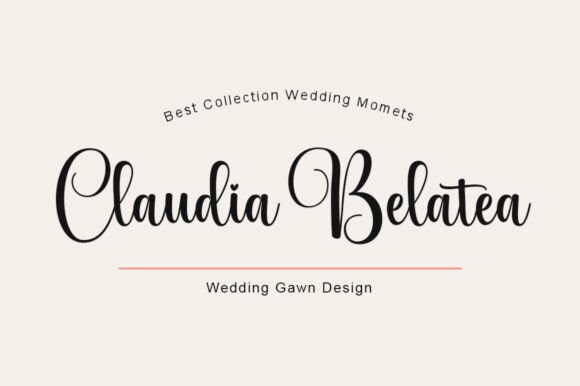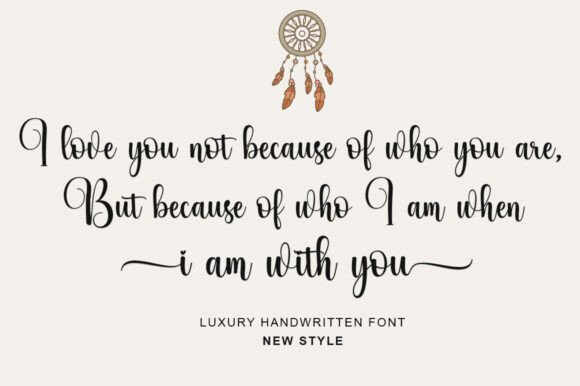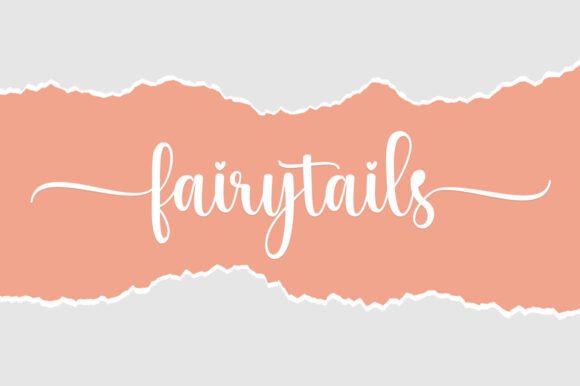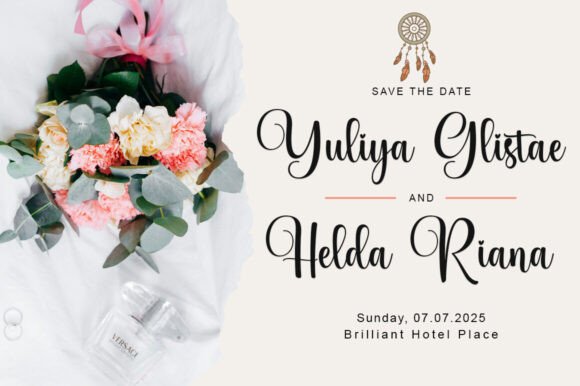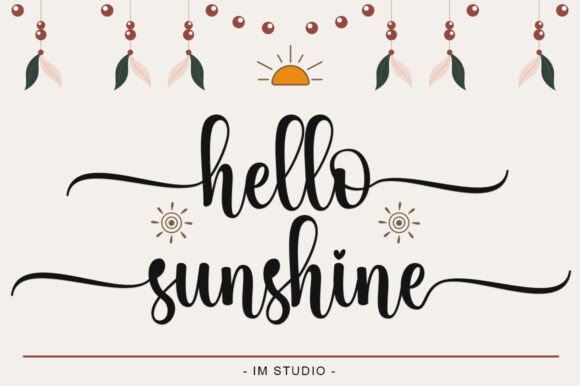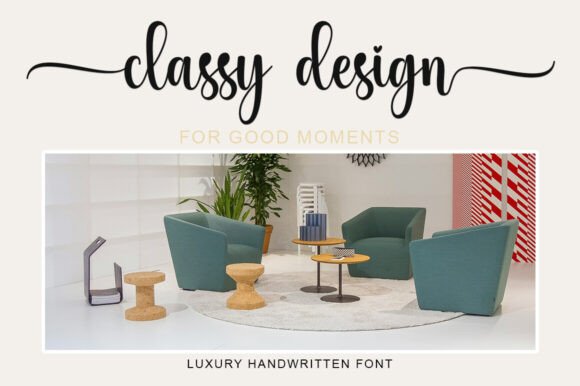
Unlock the Whimsy of Bohema Font
There’s something magical about creating a design that transports your audience to a world of warmth and intimacy. Perhaps it’s the gentle curves of a handwritten script, or the way a perfectly placed image can evoke a sense of nostalgia. Whatever the trigger, as designers, we know the power of creating an atmosphere that draws people in and makes them feel at home.
That’s where the Bohema Font comes in – a captivatingly flowing handwritten font that exudes cozy charm and romantic flair. Whether you’re crafting a wedding invitation, a children’s book, or a social media campaign, Bohema adds a touch of whimsy and elegance to your design. Its versatile beauty amplifies the appeal of any project, making it a valuable addition to any designer’s toolkit.
Key Features of Bohema Font
- Font Family: Bohema Font offers 4 different font styles: Bohema Script, Bohema Script Alternate, Bohema Sans, and Bohema Sans Alternate.
- Unique Characteristics: Bohema Font features elegant, handwritten script styles with a touch of sophistication, making it ideal for creating beautiful and luxurious designs.
Bohema Font Review
Overall, I think the Bohema font is a great addition to any designer’s toolkit. Here are a few things that work well: ✨
- Unique flair: Bohema has a distinct, quirky style that adds a touch of elegance to any design.
- Flexibility: This font is versatile and can be used in a variety of contexts, from headings to body text.
- Legibility: Despite its ornate features, Bohema is surprisingly easy to read, even at smaller font sizes.
- Overuse: Bohema’s distinct style can quickly become overwhelming if overused. Be sure to balance it with other fonts and design elements.
- Lack of subtlety: Bohema is a statement font – it’s not the best choice for subtle or understated designs.
Overall, I’m a big fan of the Bohema font. While it may not be the best fit for every project, it’s a great tool to have in your design arsenal. With careful use and consideration, Bohema can add a touch of sophistication and whimsy to even the most mundane designs.
For the best results, use Bohema font in conjunction with bold or italic styles to add emphasis.
- Artistic quotes and posters
- Vintage-inspired designs and branding
Alternatives to Bohema Font for Designers
Great Vibes Font is a beautiful, elegant script font perfect for creating a luxurious and sophisticated feel. It’s ideal for use in high-end branding, wedding invitations, and luxury packaging. Great Vibes Font has a more refined and polished look compared to Bohema Font, which makes it suitable for formal and elegant designs.
Pacifico Font is a modern, elegant script font that works well for a variety of designs, from invitations to branding. It’s ideal for use in designs that require a touch of sophistication and elegance. Pacifico Font has a similar feel to Bohema Font, but with a more modern and sleek look.
Dancing Script Font is a beautiful, elegant script font perfect for creating a whimsical and romantic feel. It’s ideal for use in designs that require a touch of playfulness and elegance. Dancing Script Font has a more flowing and dynamic look compared to Bohema Font, which makes it suitable for designs that require a sense of movement and energy.
Carolyna Pro Font is a modern, elegant script font that works well for a variety of designs, from branding to invitations. It’s ideal for use in designs that require a touch of sophistication and elegance. Carolyna Pro Font has a similar feel to Bohema Font, but with a more modern and polished look.
Bohema Font Creative Project Ideas
Project 1: Bohema Quote Wall
A beautifully designed quote wall featuring inspiring quotes in the Bohema font.
To use Bohema Font in this project:
- Choose a few inspirational quotes and arrange them in a visually appealing way on a wall or canvas.